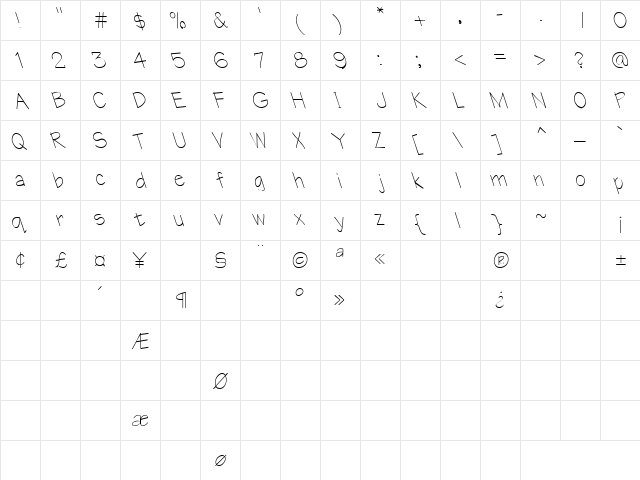
Stand 2 Regular
Design Context for Stand 2 Typeface
Stand 2 is a composed and adaptable typeface that performs quietly and consistently across a wide range of design contexts.